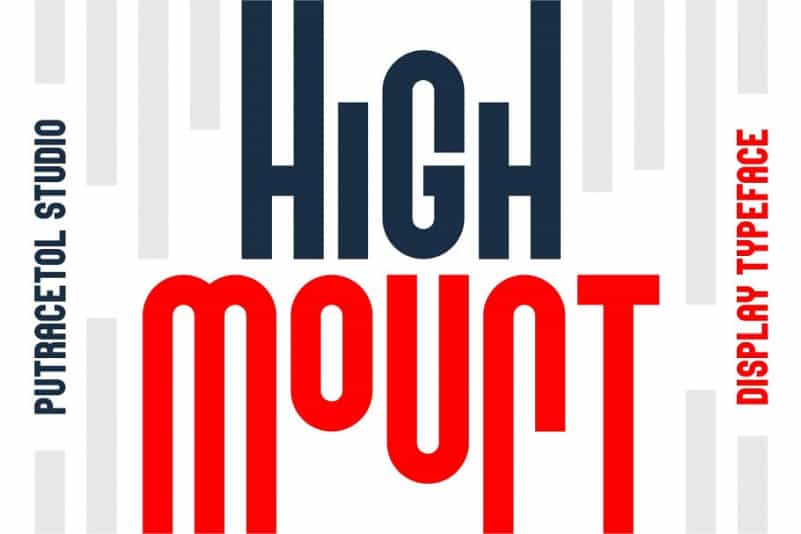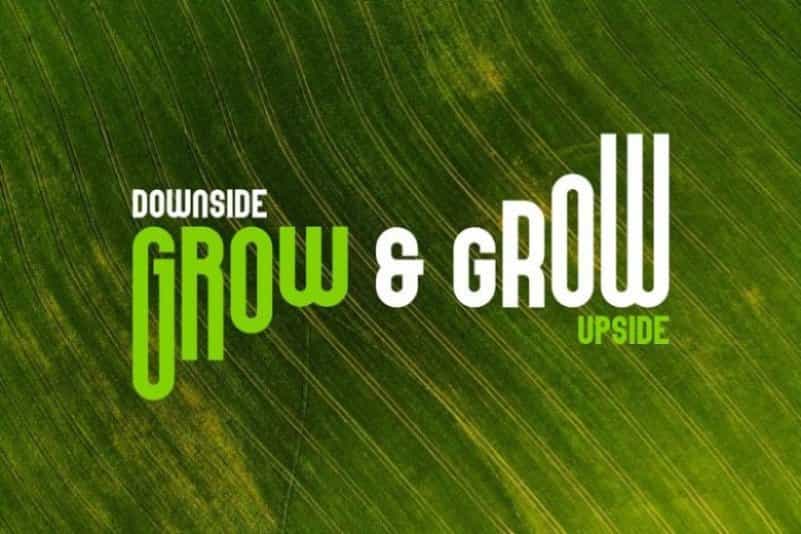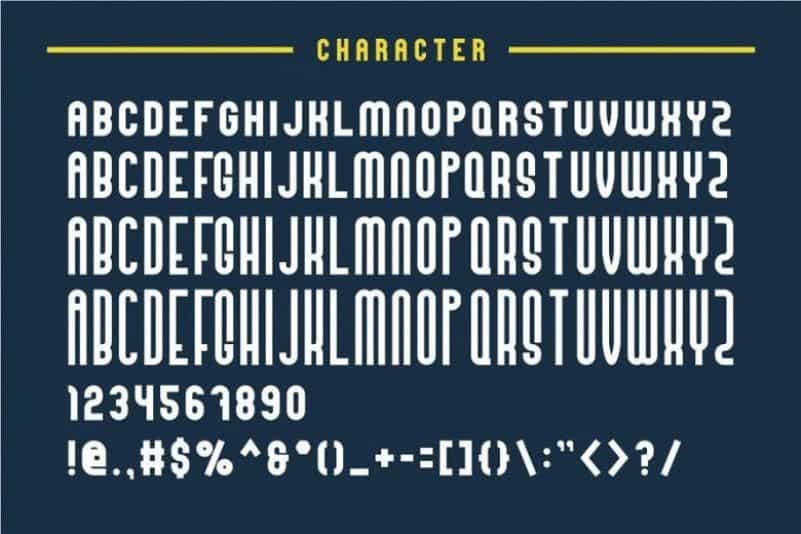
Introducing HighMount Font. High Mount Typeface with the variations of different heights. This font is of three heights up and down. starting from the normal, then medium and high all the way to very high. This typeface is special and perfectly matches the logos, T-shirt, apparel quote, handwritten quotes product packaging title header poster merchandise social media labels branding & greeting cards.